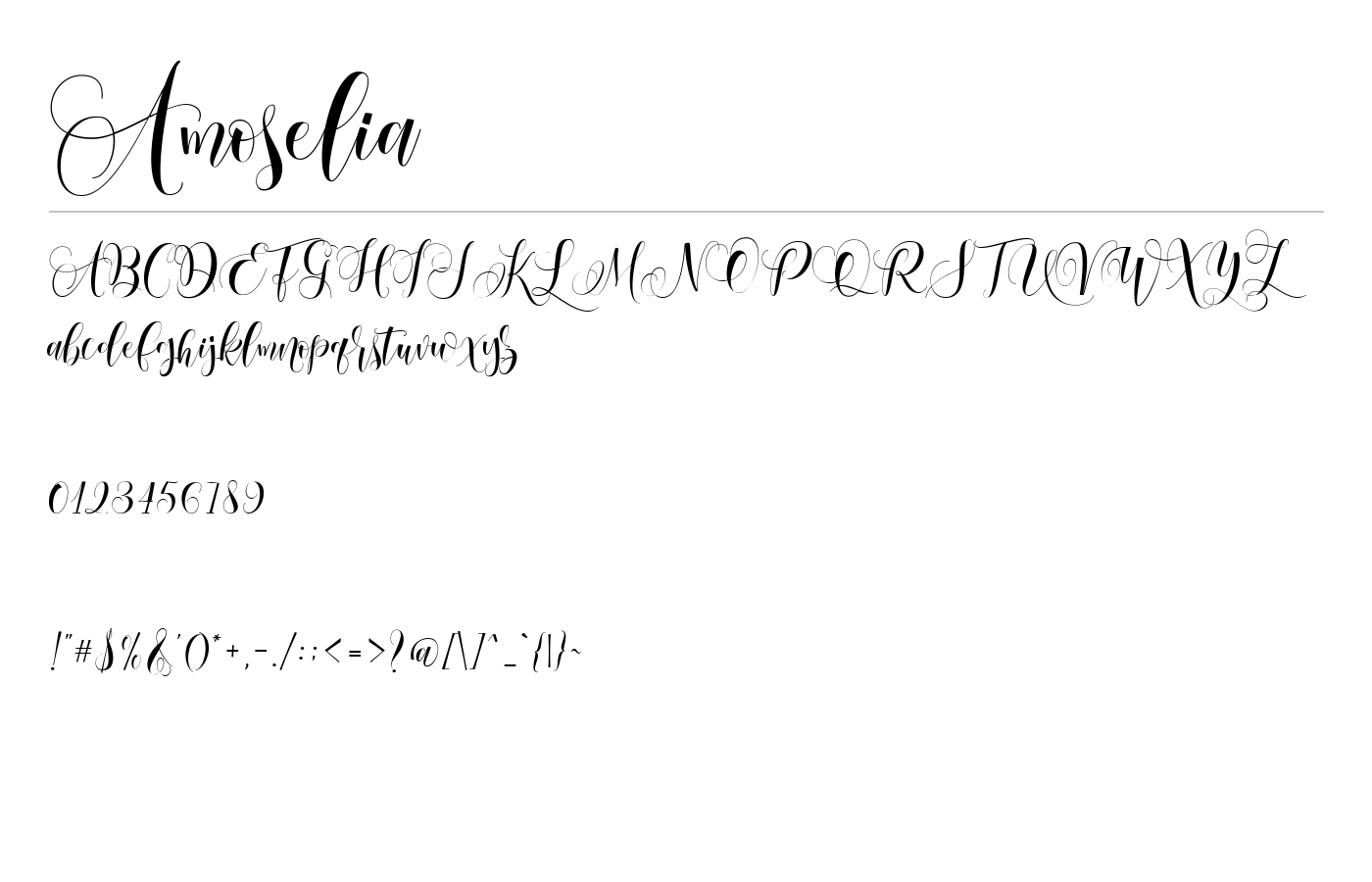
Amoselia is an elegant script font with delicate, flowing strokes and beautiful flourishes that give it a sophisticated, handwritten feel. Its slender lines and decorative uppercase letters make it perfect for special occasions, luxury branding, and feminine design projects that seek a graceful, romantic touch. This font works best in invitations, logos, and editorial headlines where an artistic and refined style is desired.
Amoselia Font
About Amoselia Font